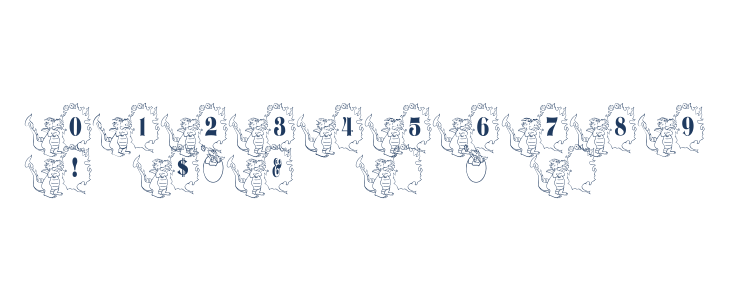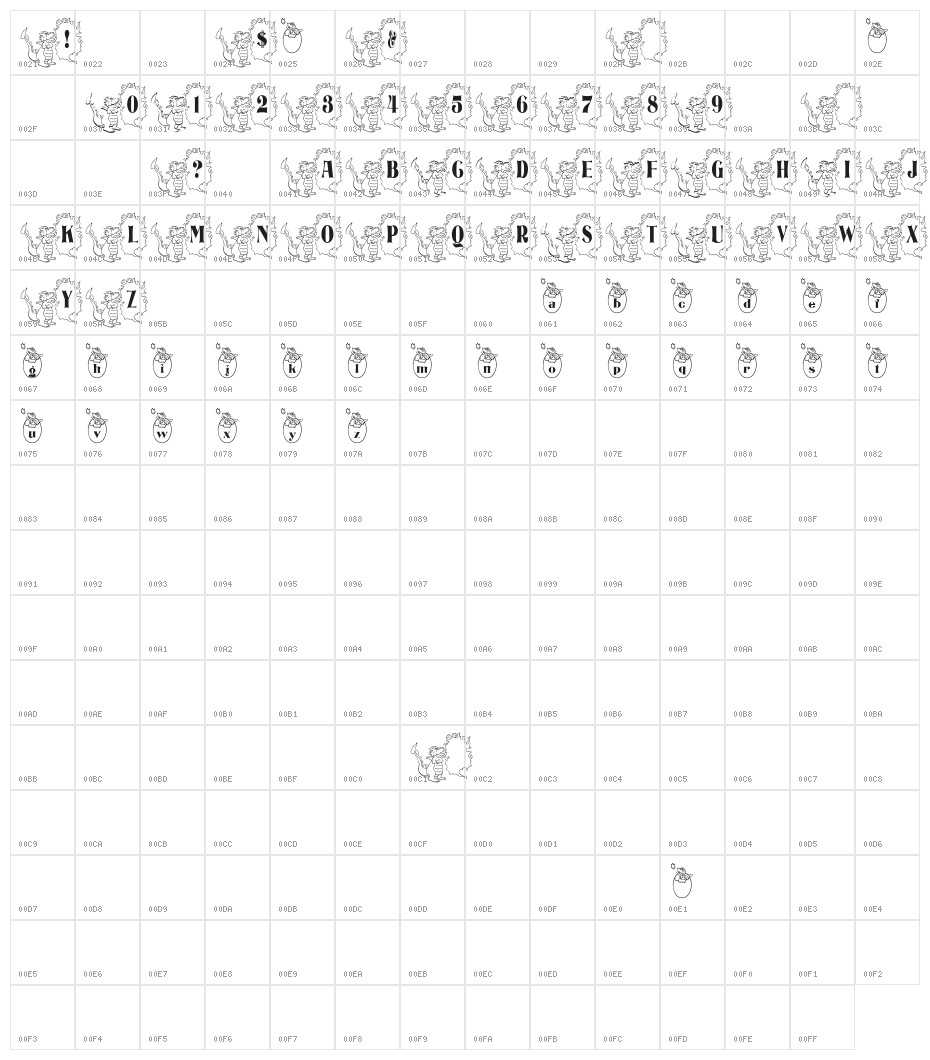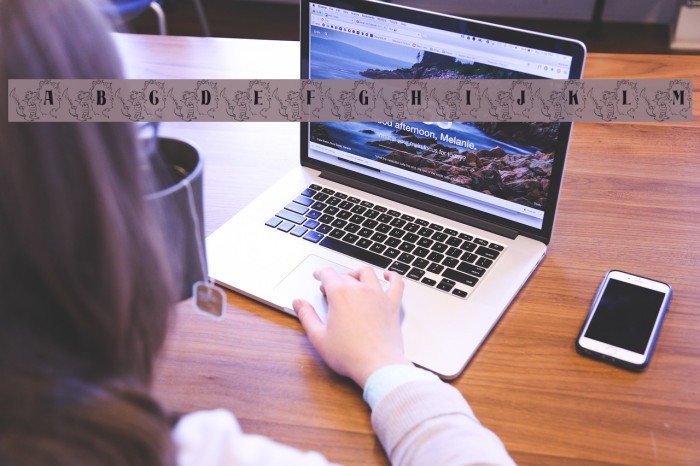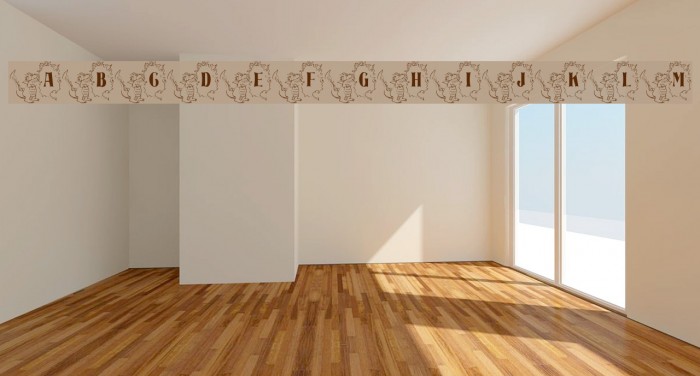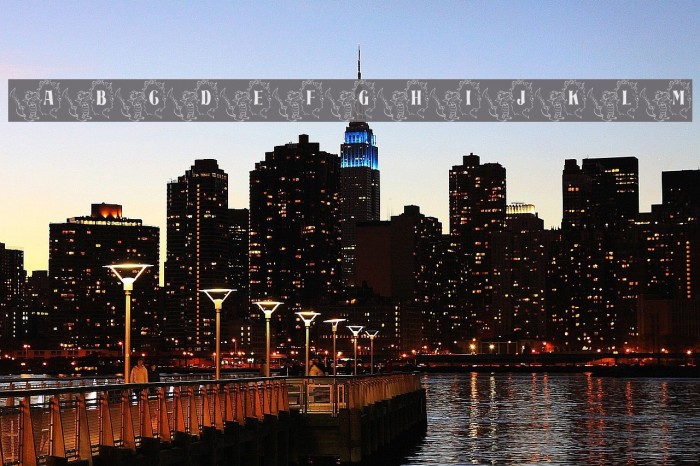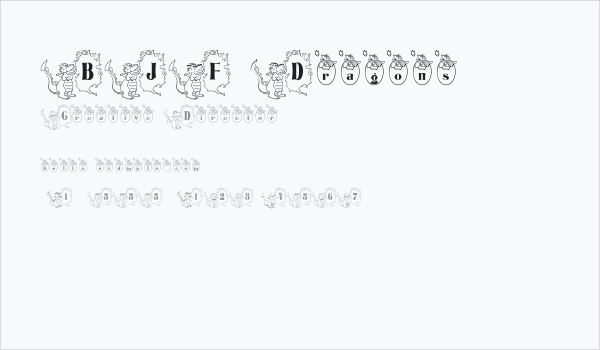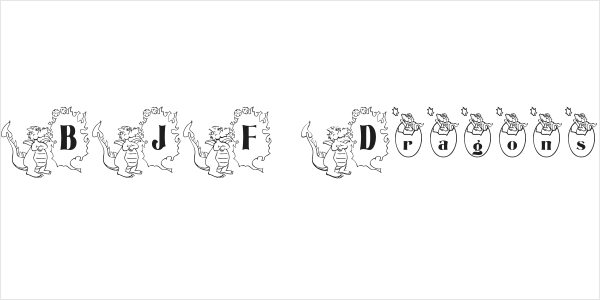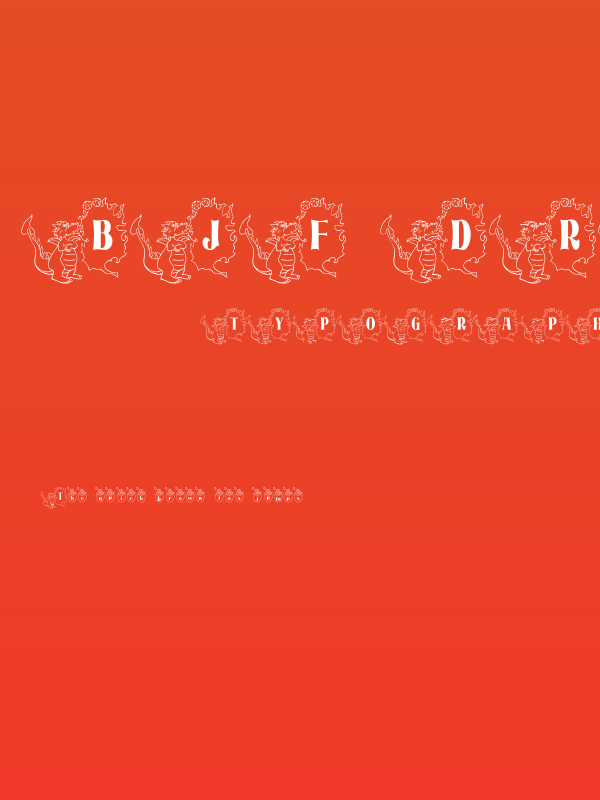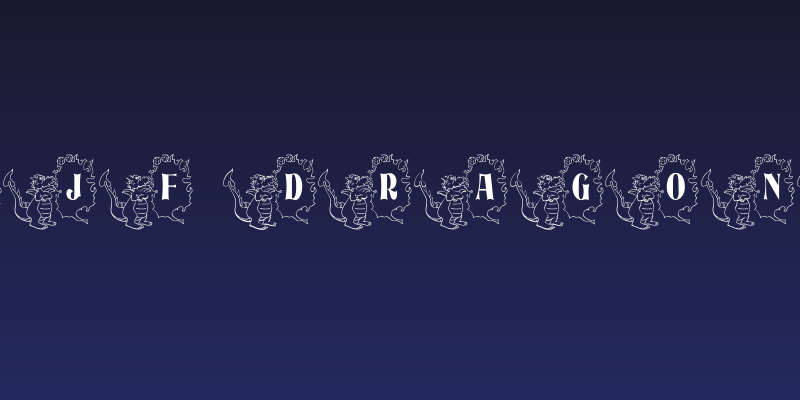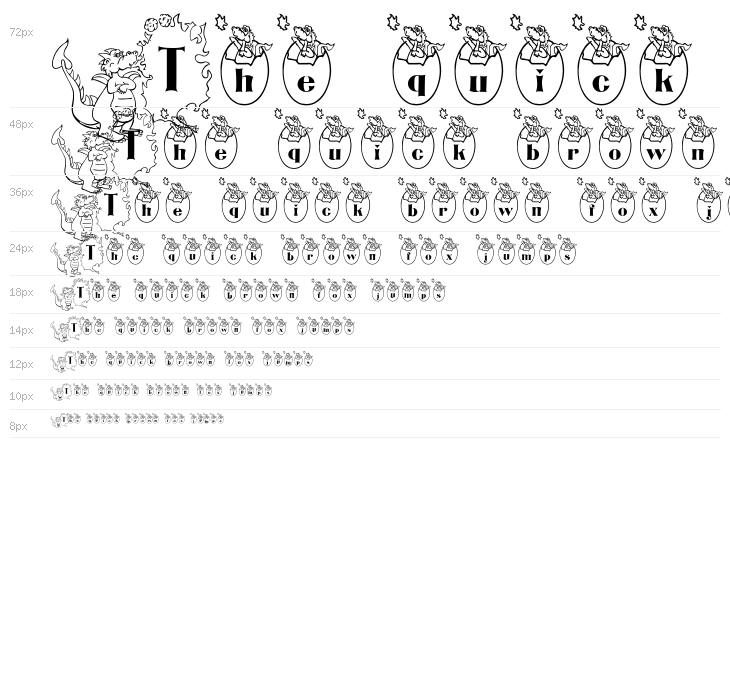
BJF Dragons Font
BJF Dragons Description
This whimsical and playful font features each character encased within a charming dragon illustration. The uppercase and lowercase letters, as well as numbers and special characters, are all uniquely designed with a dragon motif, making each character appear as if it is being presented by a friendly dragon. The font has a decorative and fantasy-inspired style, perfect for projects that require a touch of magic and creativity. The characters are bold and clear, ensuring readability despite the intricate designs surrounding them. This font is ideal for children's books, fantasy-themed projects, or any design that seeks to capture an imaginative and enchanting atmosphere.
| Proposed Projects | Ideal for children's books, fantasy-themed posters, game designs, and creative invitations. |